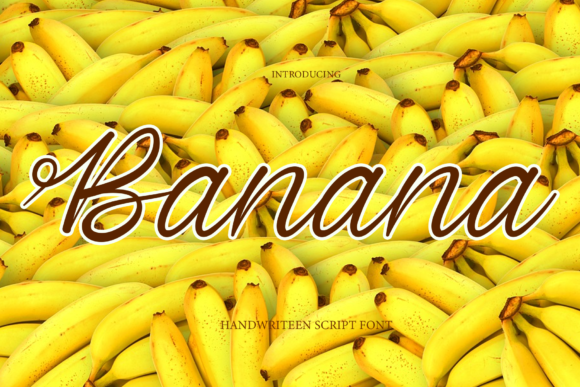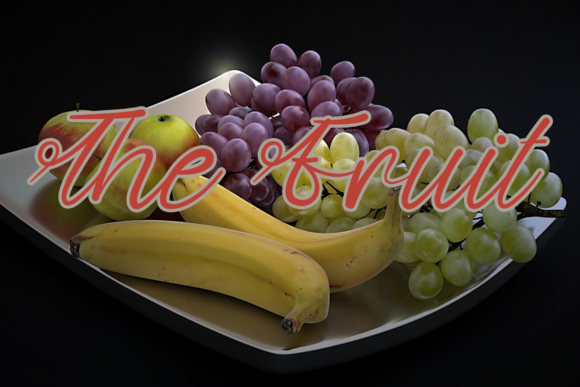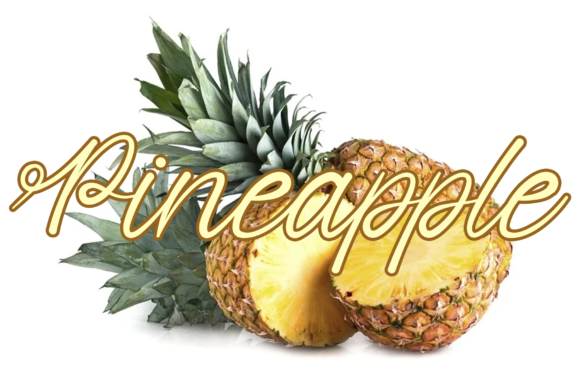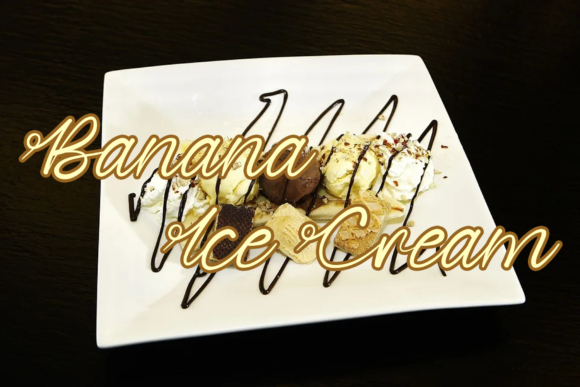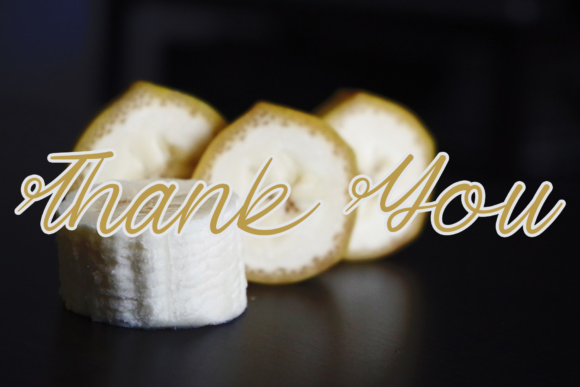
Banana Font
About Banana Font
Banana is a delicate, flowing and sweet handwritten font. Not too thin and not too thick, balanced and varied, this font was designed to enhance the beauty of your projects.